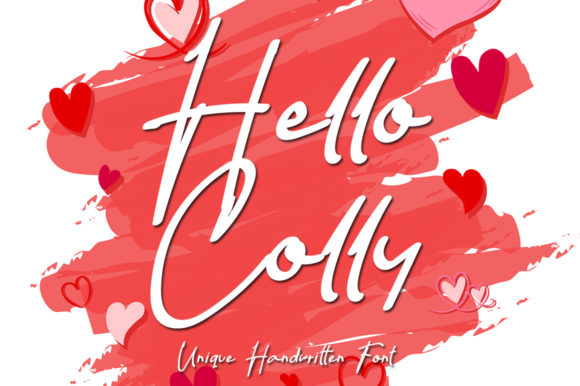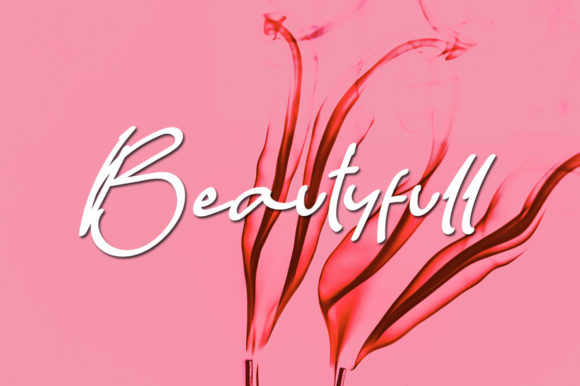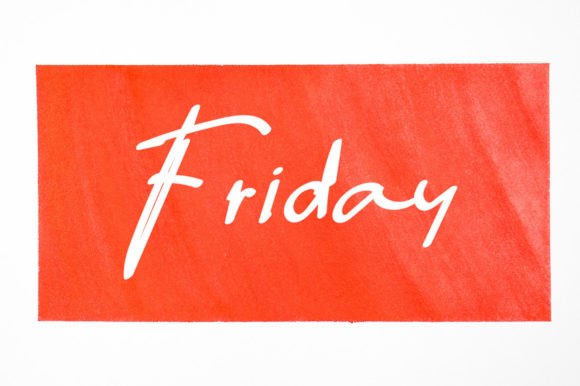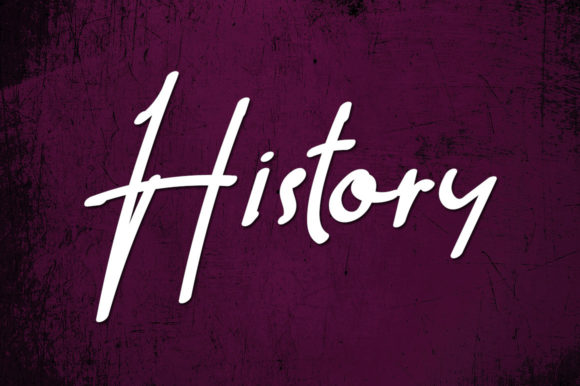
Hello Colly Font
About Hello Colly Font
Hello Colly is a cute and simple lettered handwritten font that can be used for all chalkboard quotes or teaching material! Its authentic look will add a personal and realistic feel to your designs.